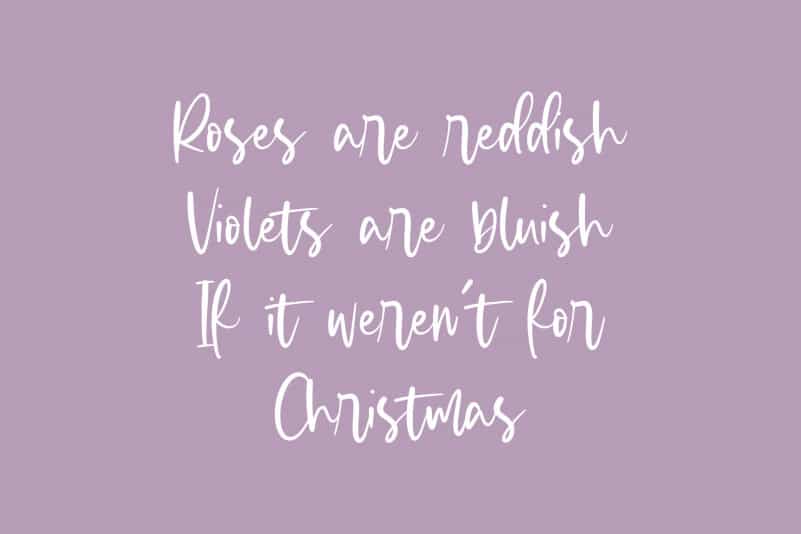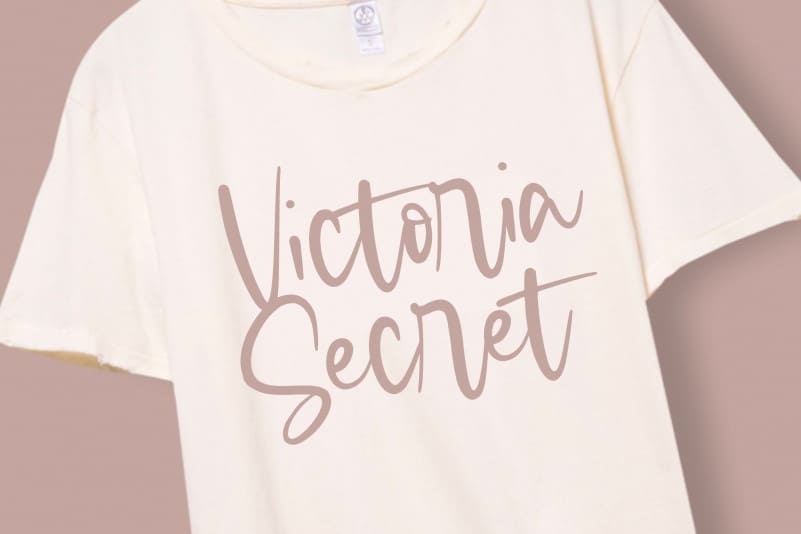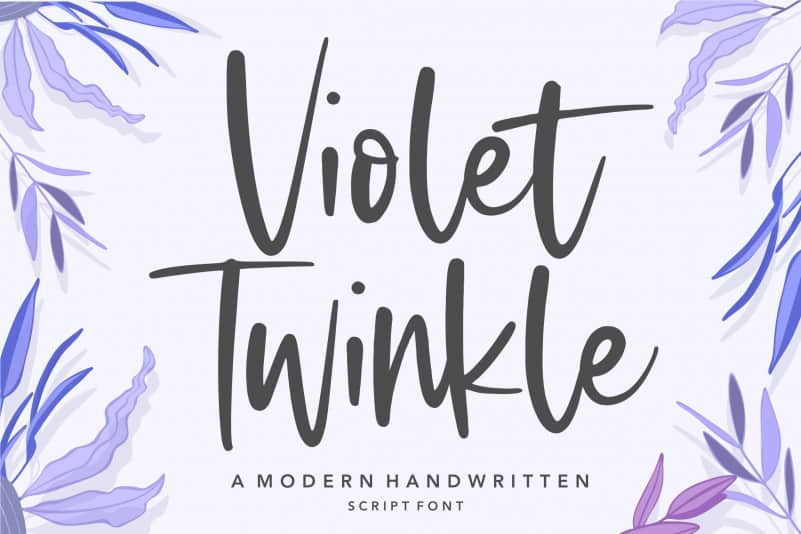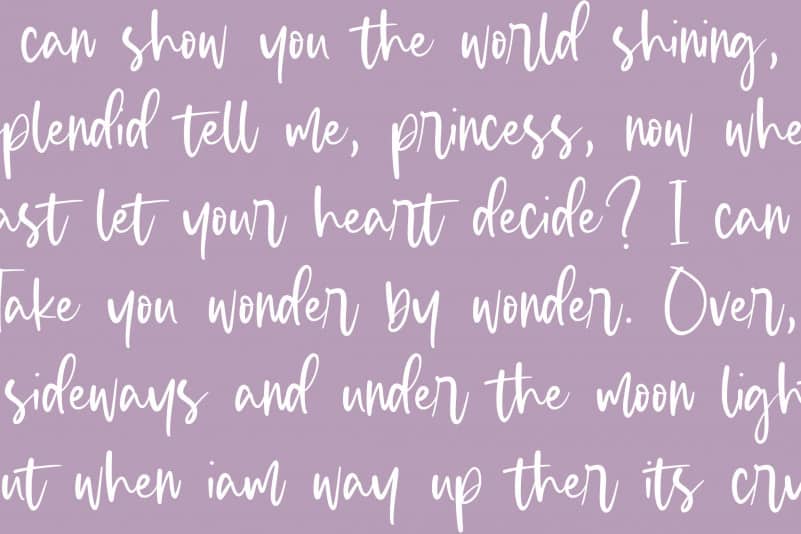
Violet Twinkle Script Font
Introducing by Balpirick Studio.
Proudly Present, Violet Twinkle Modern Handwritten Script Font.
Violet Twinkle is a Modern Handwritten Script Font.
Violet Twinkle is perfect for product packaging, branding project, megazine, social media, wedding, or just used to express words above the background.